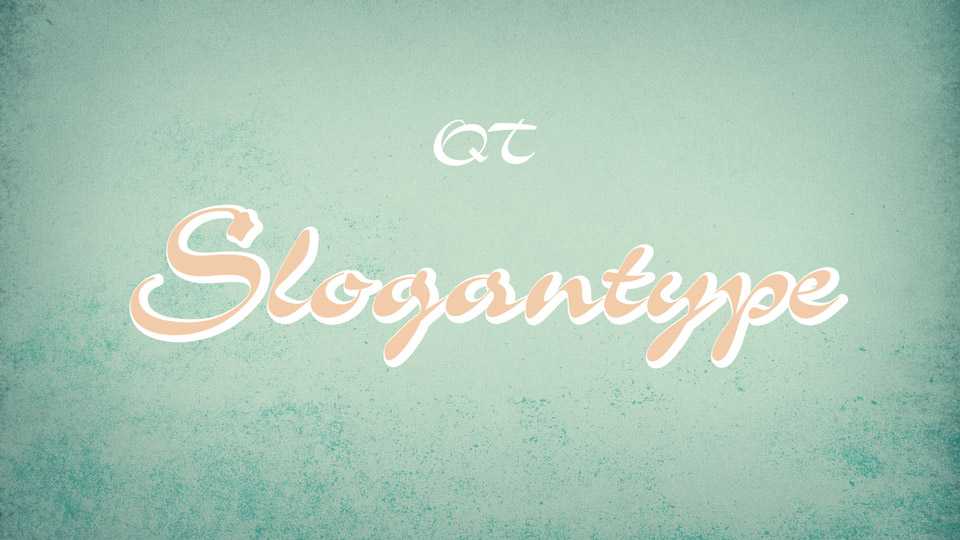
Download Slogantype font, a calligraphic brush drawn script based on Slogan of Ludwig & Mayer type foundry, 1959, by Helmut Matheis. Slogantype designed for use in advertising and display typography